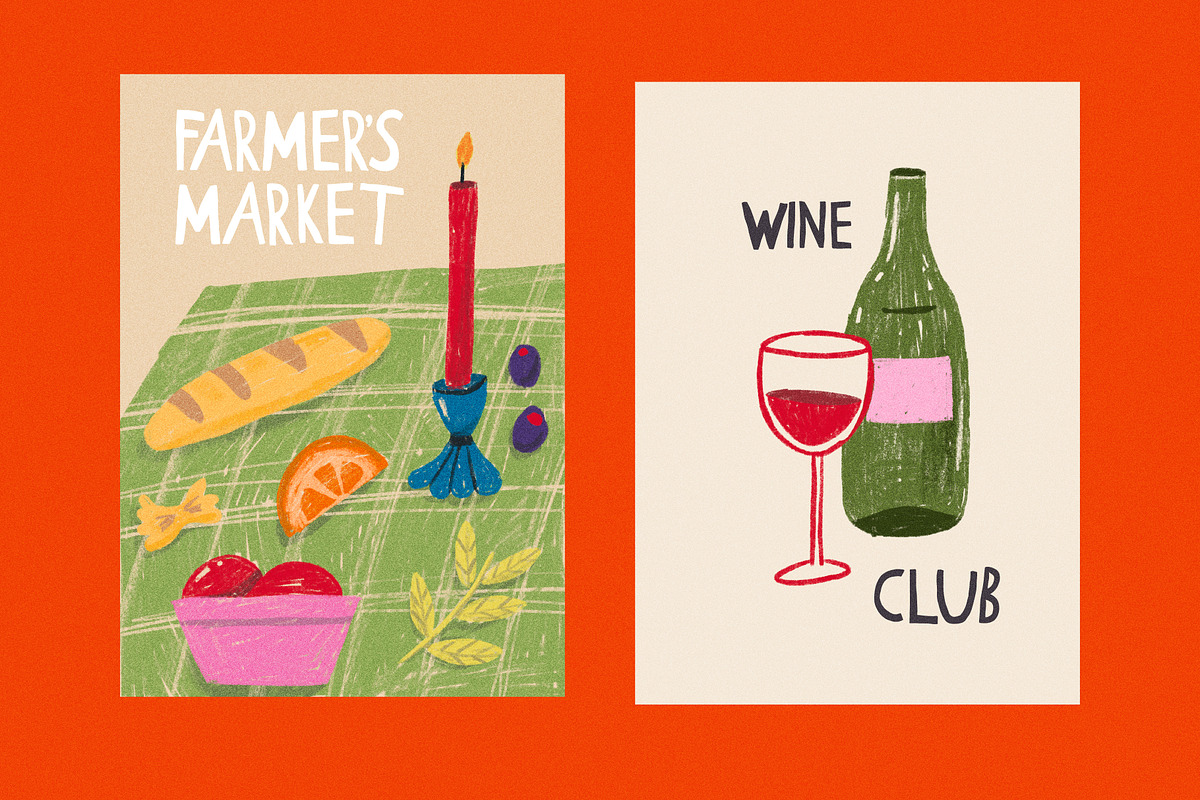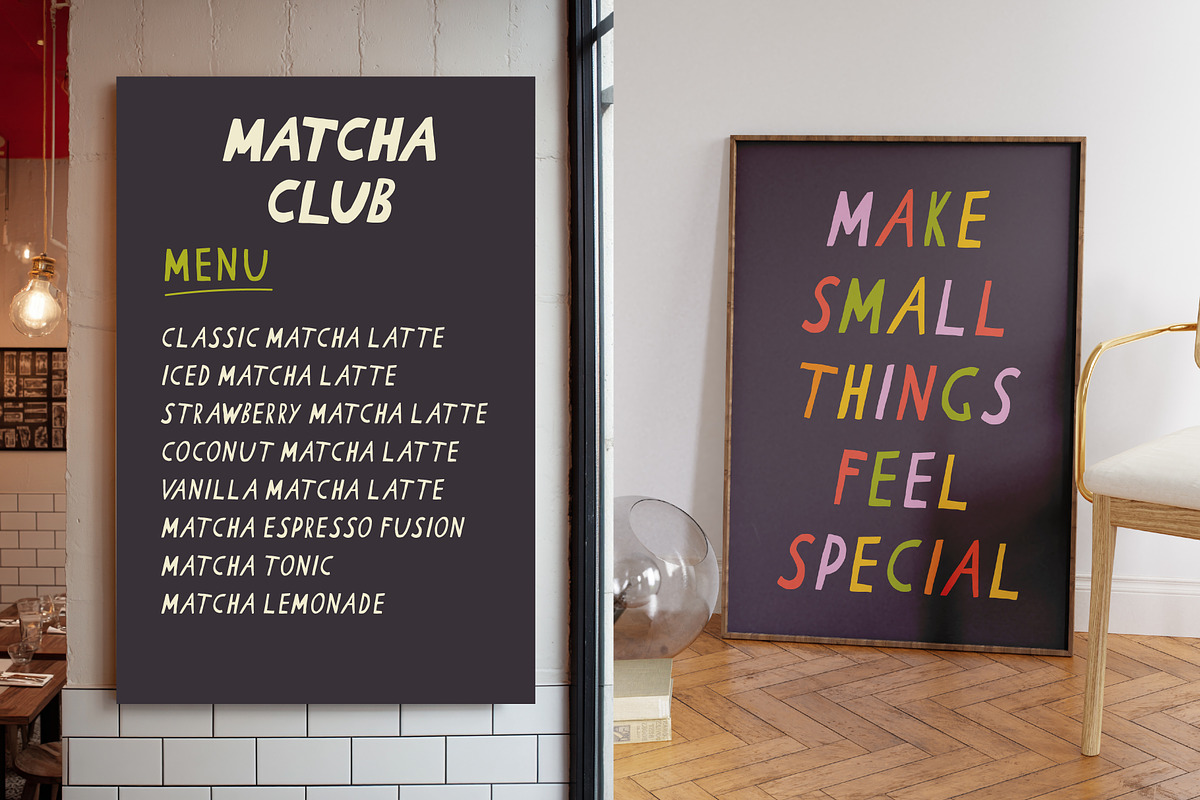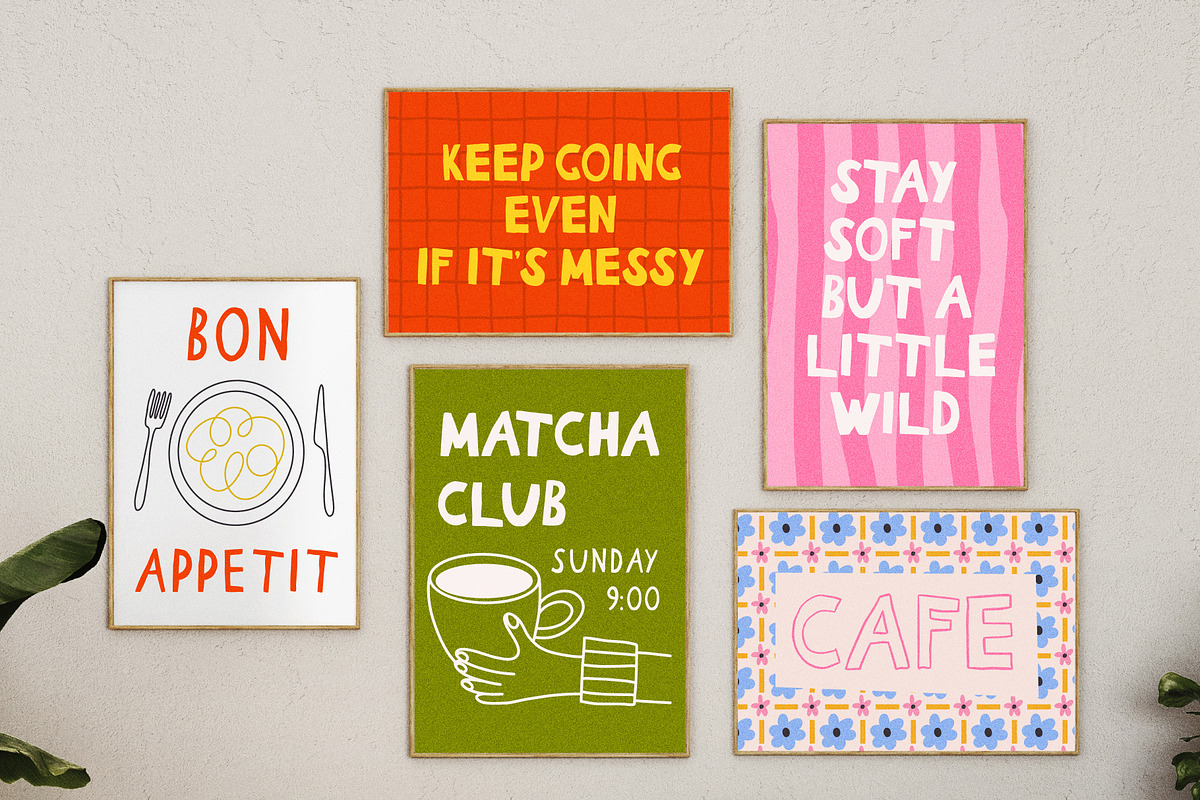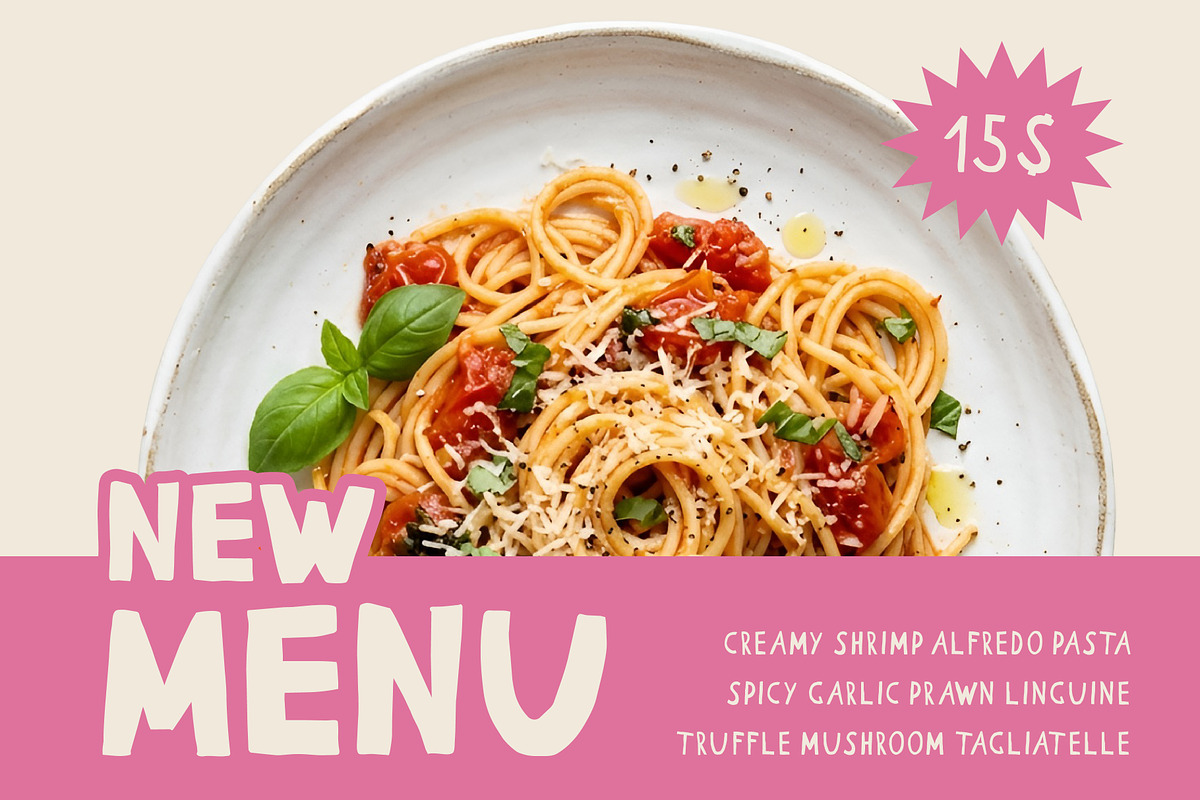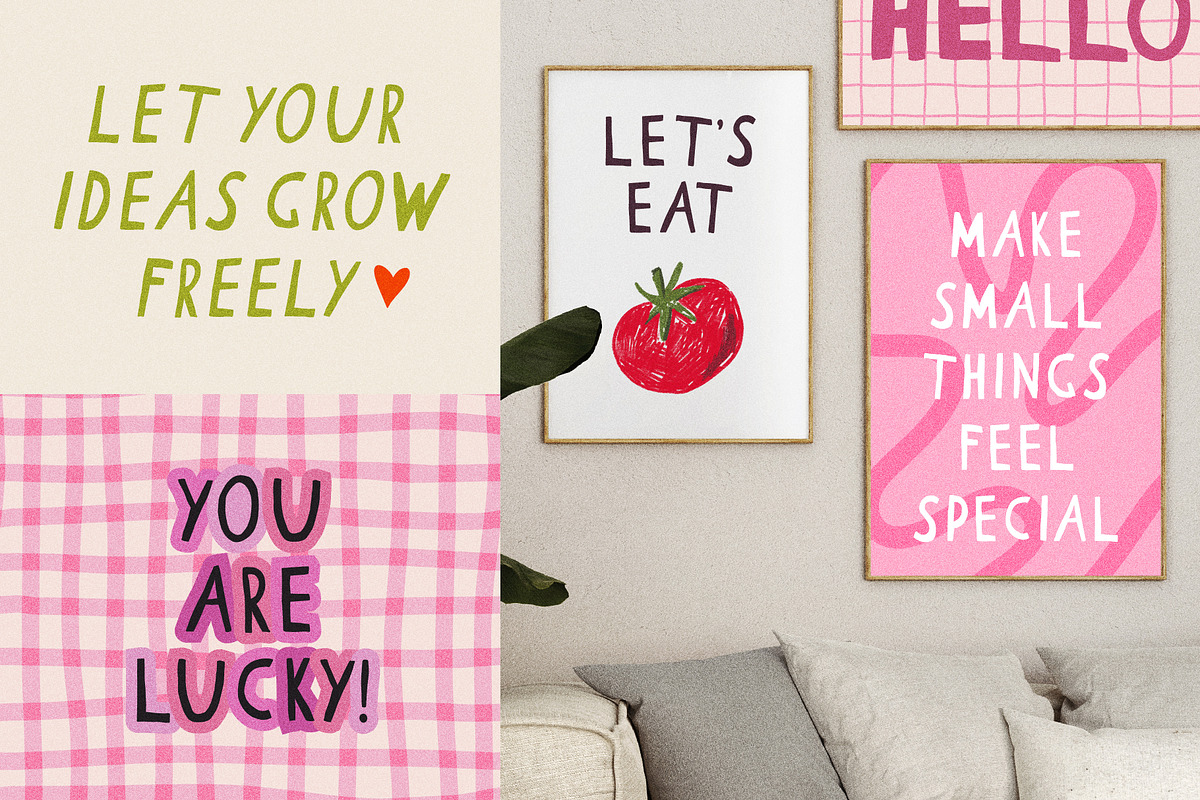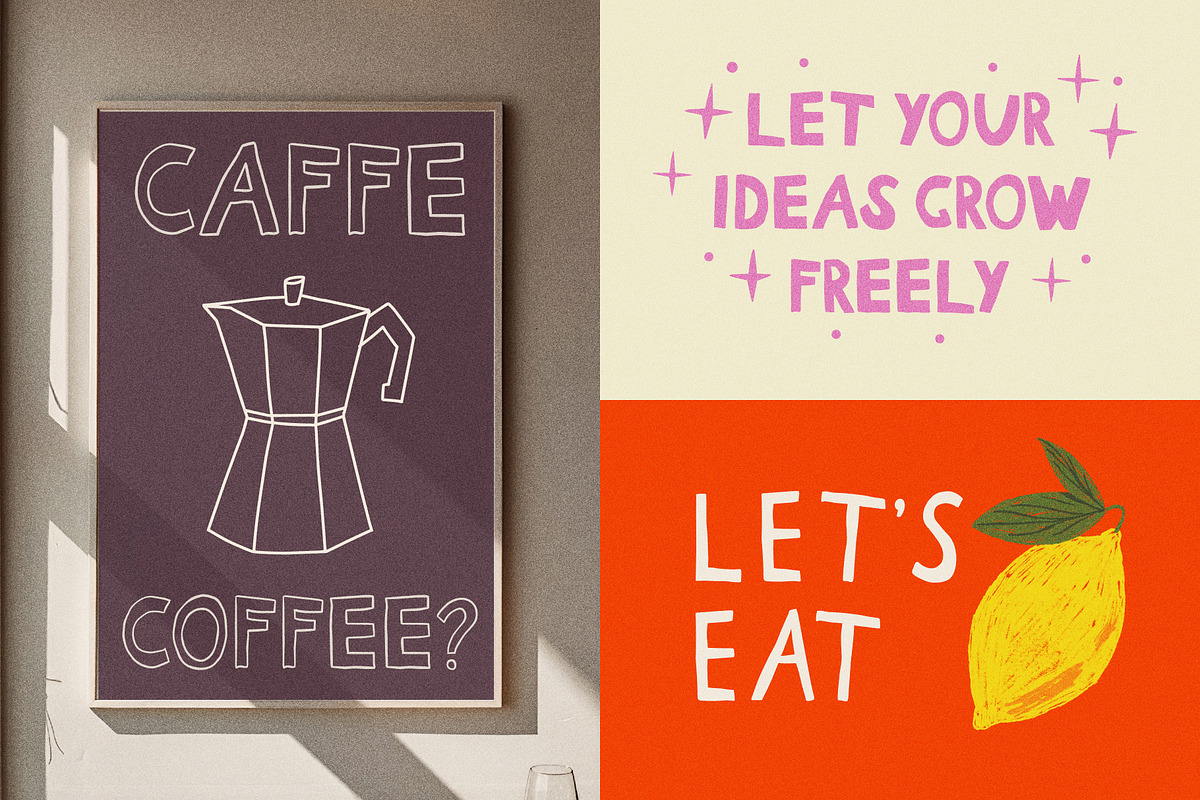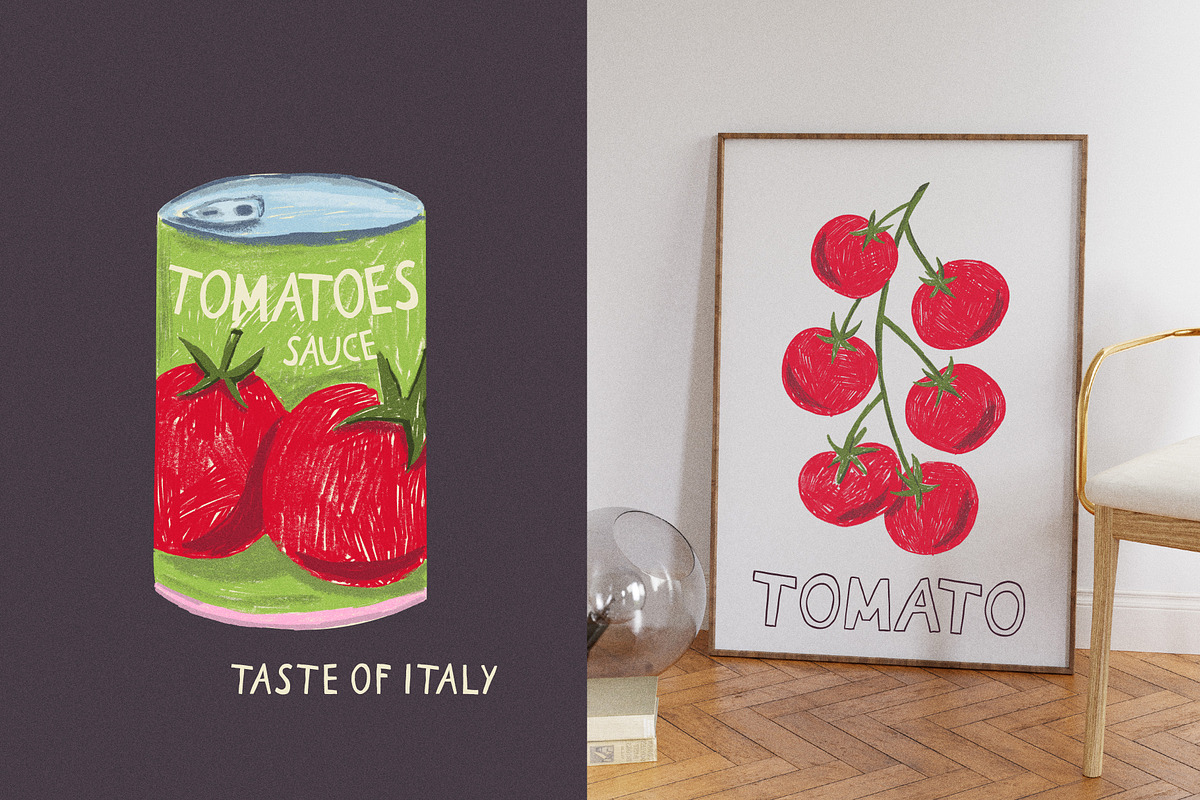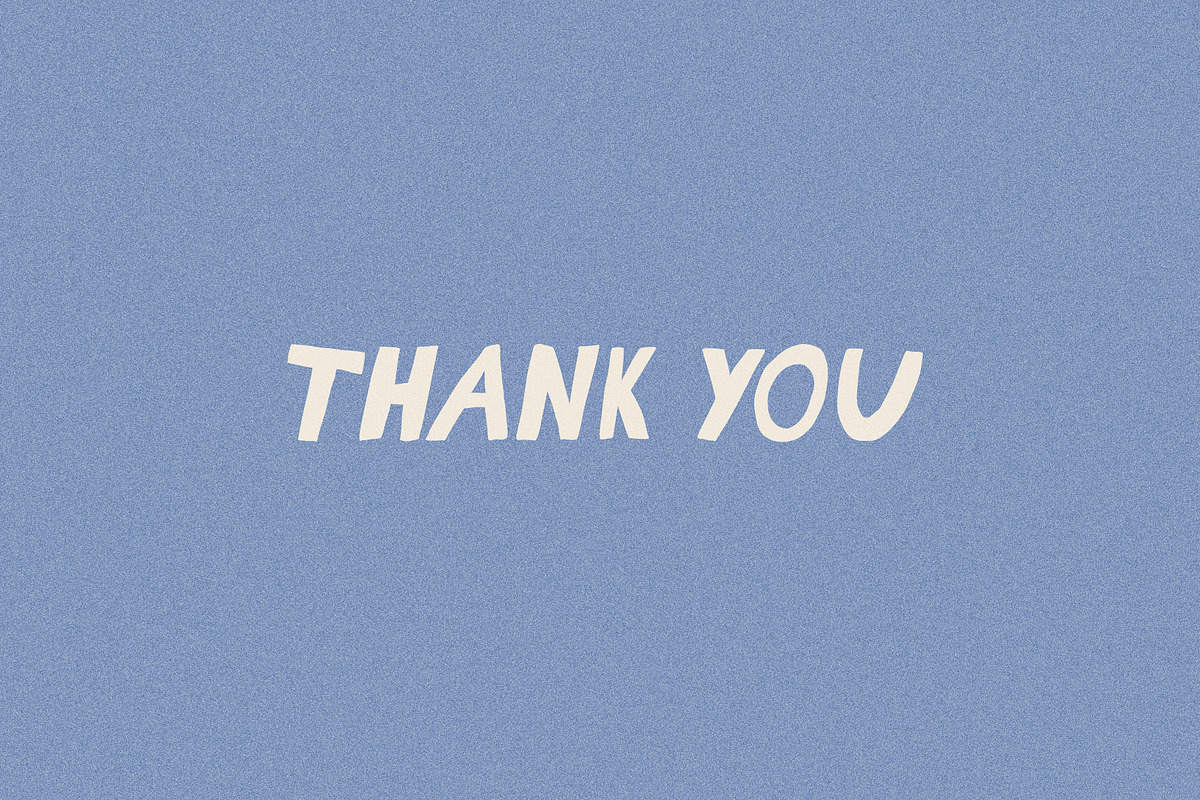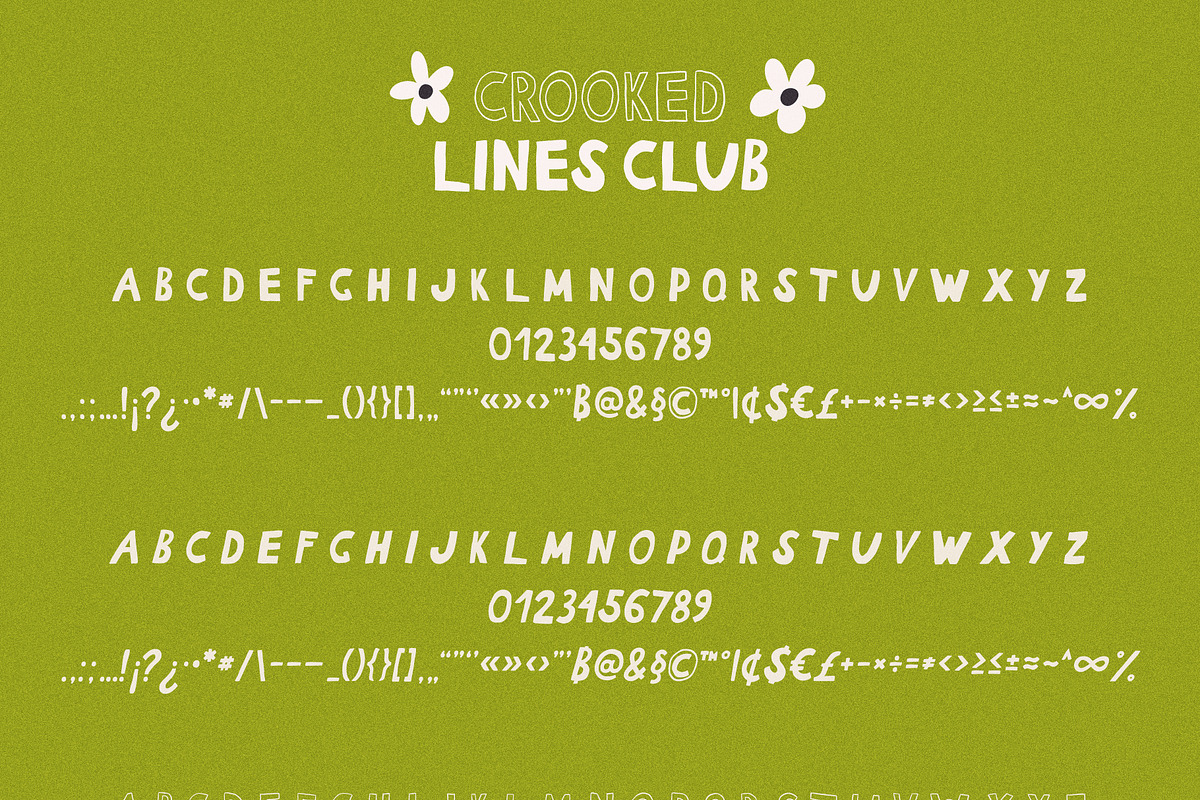
Crooked Lines Club Font
Meet Crooked Lines Club — a playful, imperfect, and full-of-character handwritten font that celebrates the beauty of wobbly lines and carefree creativity. Designed in an expressive all-caps style, this font brings a bold yet friendly personality to any project.
With its slightly uneven shapes and organic feel, it looks like it was drawn by hand in the best possible way — relaxed, fun, and totally unique. The line art version adds an extra layer of charm, making it perfect for modern, trendy, and artistic designs.